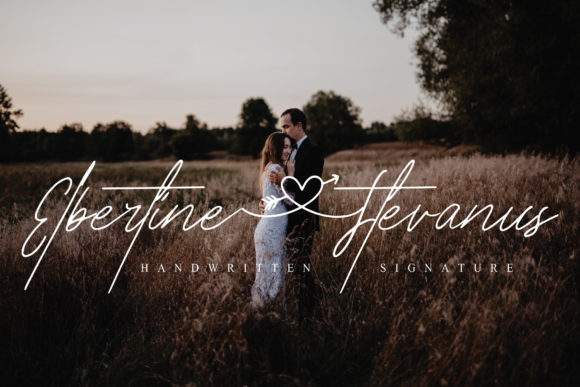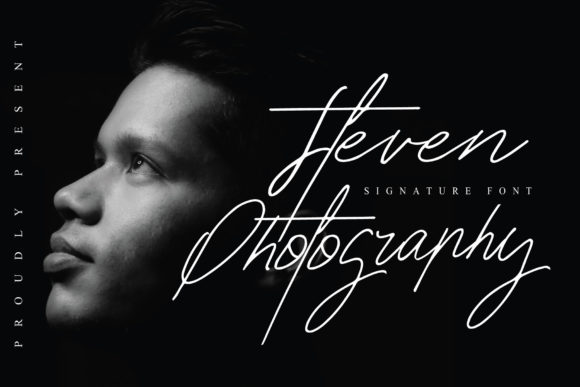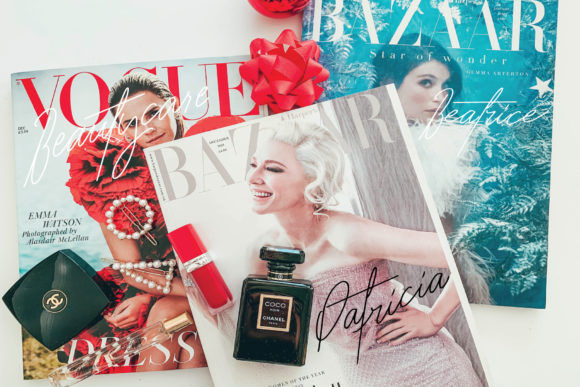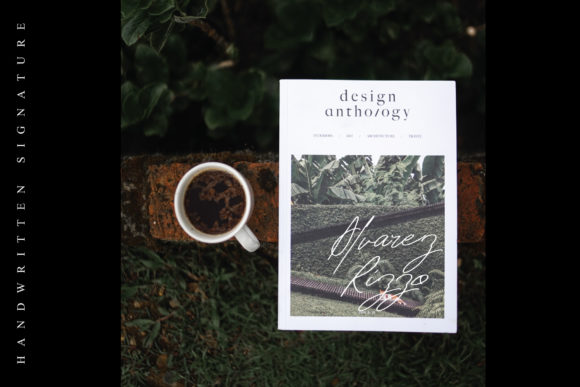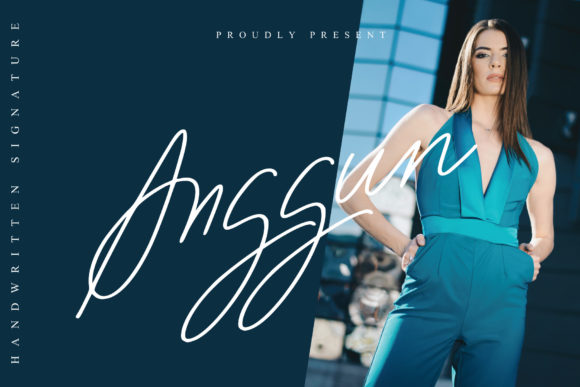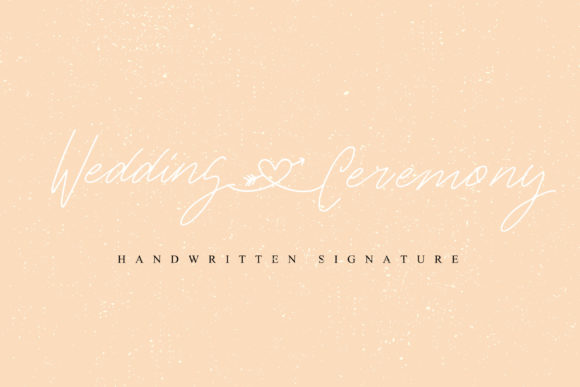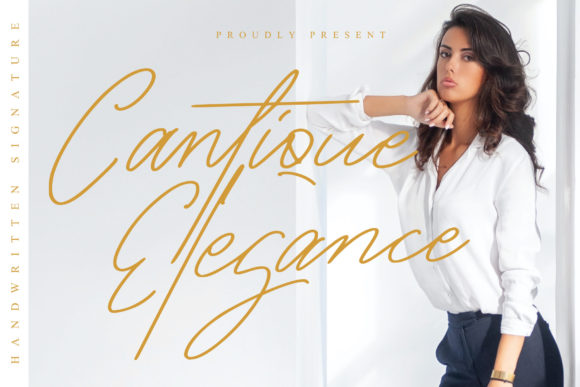
Cantique Elegance Font: Elevate Your Design with Stylish Elegance
In the world of typography, a font can make or break the visual appeal of a design. For designers and crafters looking to add a touch of sophistication and elegance to their projects, Cantique Elegance Font is an excellent choice. This stylish and elegant handwritten font is designed to impress your audience and make your branding shine.
The Beauty of Cantique Elegance Font
Cantique Elegance Font is a beautiful, handcrafted font that exudes luxury and refinement. Its elegant strokes and flowing lines make it perfect for a wide range of design applications, from headings and logos to ads, printed quotes, packaging, and even website or social media branding. With Cantique Elegance Font, you can add a touch of sophistication to your projects and make them stand out from the crowd.
Key Features of Cantique Elegance Font
- Elegant Handwritten Style: Cantique Elegance Font boasts a stylish and elegant handwritten style that is sure to impress your audience.
- Versatile: This font is perfect for a wide range of design applications, including headings, logos, ads, printed quotes, packaging, and even website or social media branding.
- Easy to Read: Despite its elegant and cursive nature, Cantique Elegance Font is easy to read, making it perfect for body text and captions.
- Scalable: This font is highly scalable, making it perfect for use in various design applications, from business cards to billboards.
Why Choose Cantique Elegance Font?
There are many fonts available in the market, but Cantique Elegance Font stands out from the rest due to its unique features and benefits. Here are some reasons why you should choose Cantique Elegance Font for your next design project:
- Unique and Exclusive: Cantique Elegance Font is a unique and exclusive font that will make your design stand out from the crowd.
- High-Quality: This font is designed with high-quality and precision, ensuring that it looks great in any design application.
- Multilingual Support: This font supports multiple languages, making it perfect for designers and crafters who work with clients from different parts of the world.
Tips and Tricks for Using Cantique Elegance Font
Here are some tips and tricks for using Cantique Elegance Font:
- Pair it with Other Fonts: Pair Cantique Elegance Font with other fonts to create a unique and visually appealing design.
- Use it for Headings and Titles: Use Cantique Elegance Font for headings and titles to add a touch of elegance and sophistication to your design.
- Keep it Simple: Keep your design simple and clean to allow Cantique Elegance Font to shine.
Cantique Elegance Font is a stylish and elegant handwritten font that is perfect for designers and crafters looking to add a touch of sophistication and elegance to their projects. With its unique features, versatility, and ease of use, Cantique Elegance Font is an excellent choice for a wide range of design applications. Whether you’re designing a logo, creating a website, or crafting a social media post, Cantique Elegance Font is sure to impress your audience and make your branding shine.